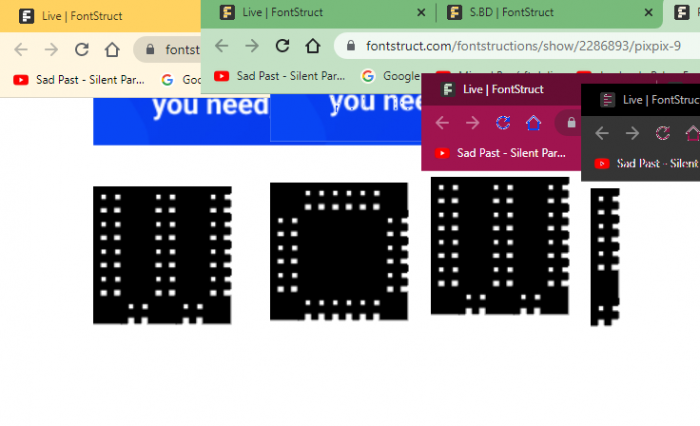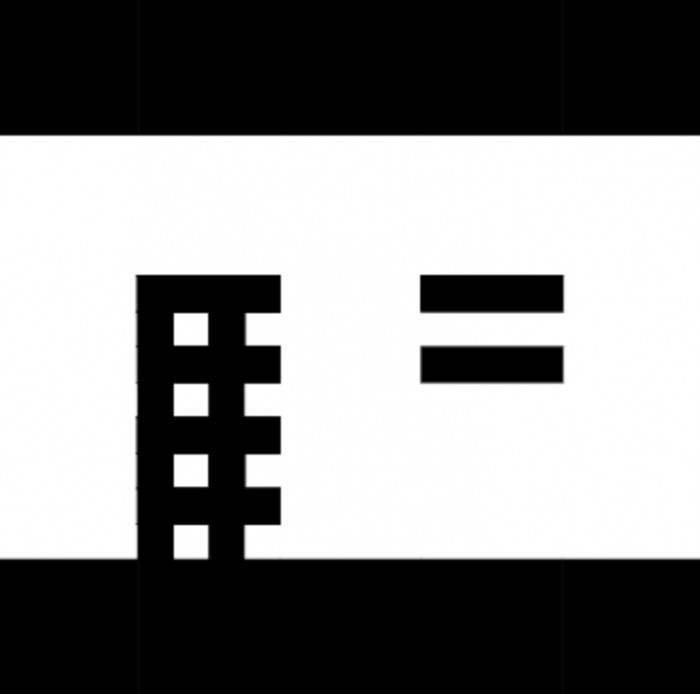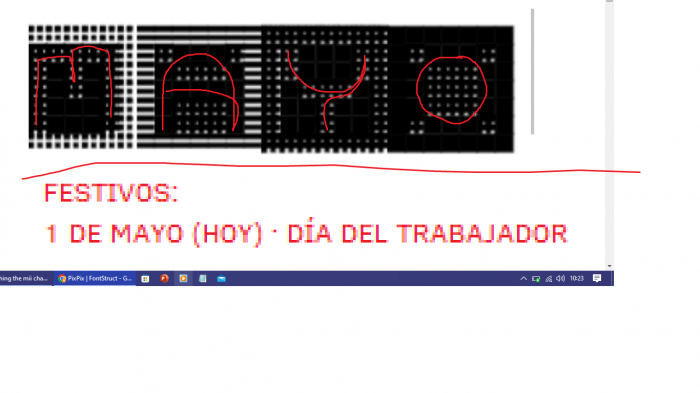
• PixPix
Make your own picture... in a typeface?
A-Y — Fully Black/No White
a-y — 75% Black/25% White
À-Ù — 50% Black/50% White/Half-Black Half-White
à-ù — 25% Black/75% White
(Note that this "font" is incomplete, and only a 5x5 canvas is available. If you want to make your picture a size bigger than that, then add multiple of this font)
FULLY BLACK
A-E is bottom row. F-J is middle-bottom row. K-O is middle row. P-T is middle-top row. U-Y is top row.
75% BLACK
Z-d is bottom row. e-i is middle-bottom row. j-n is middle row. o-s is middle-top row. t-x is top row.
can you make 'a'-'y' 75% b. instead of 'Z'-'x' (its wacky)
and be able to do two frames? ('Z' as 1x1 frame, 'z' as 1/2x1/2 frame)
@lucapri I'll do the first one later. Not sure about the second one, though.
What did you mean by the second one though?
"Atta, why are we in a 20x20 grid with little-to-no colour at all?"
if we could be able to decorate the canvas
the second one is if we can get borders for the canvas with
Z, z, Ú, ú